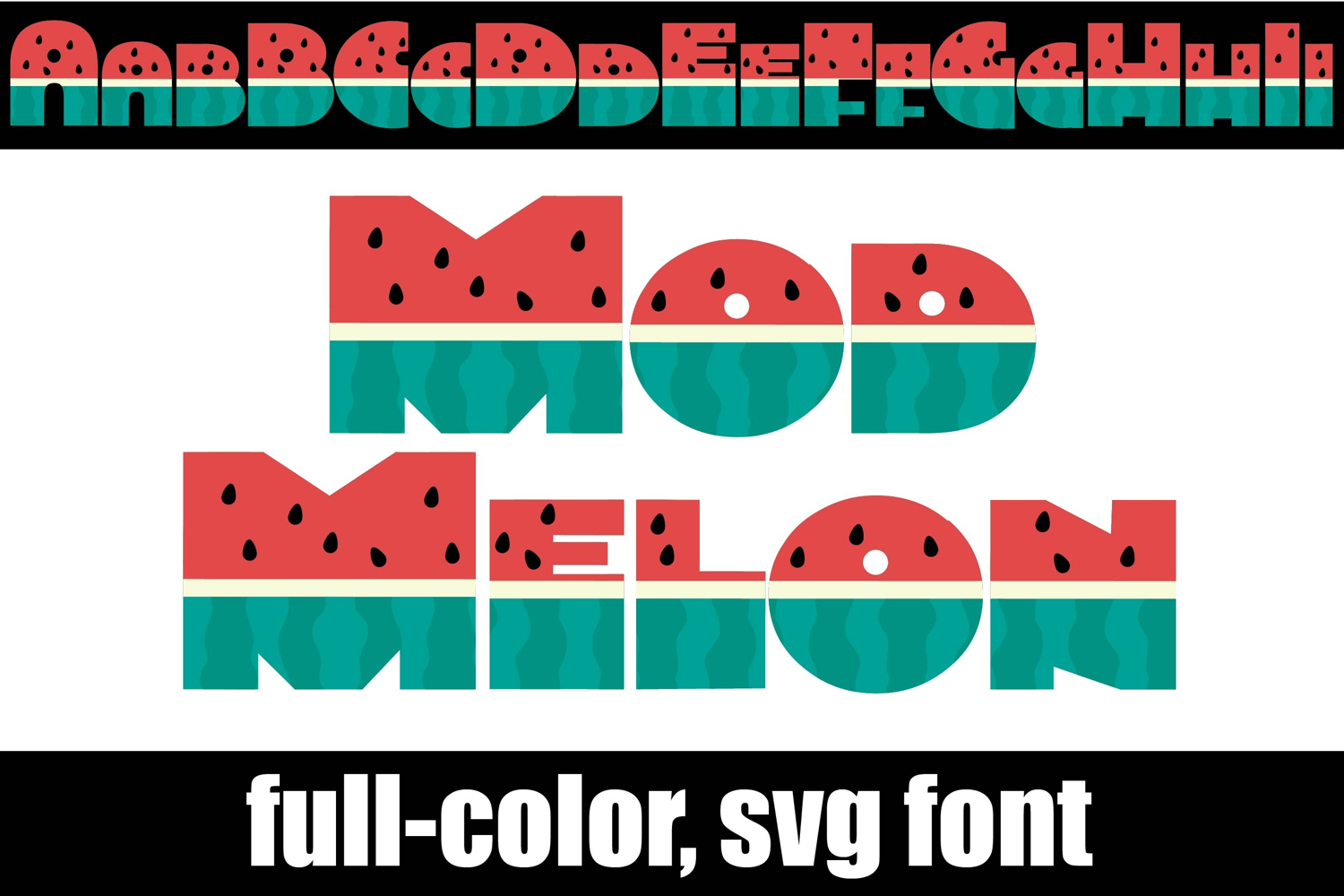
Mod Melon Color Font
This hand-crafted font is a full-color font featuring the patterns and colors of watermelons. There is an alt case of each letter with a different color combination.